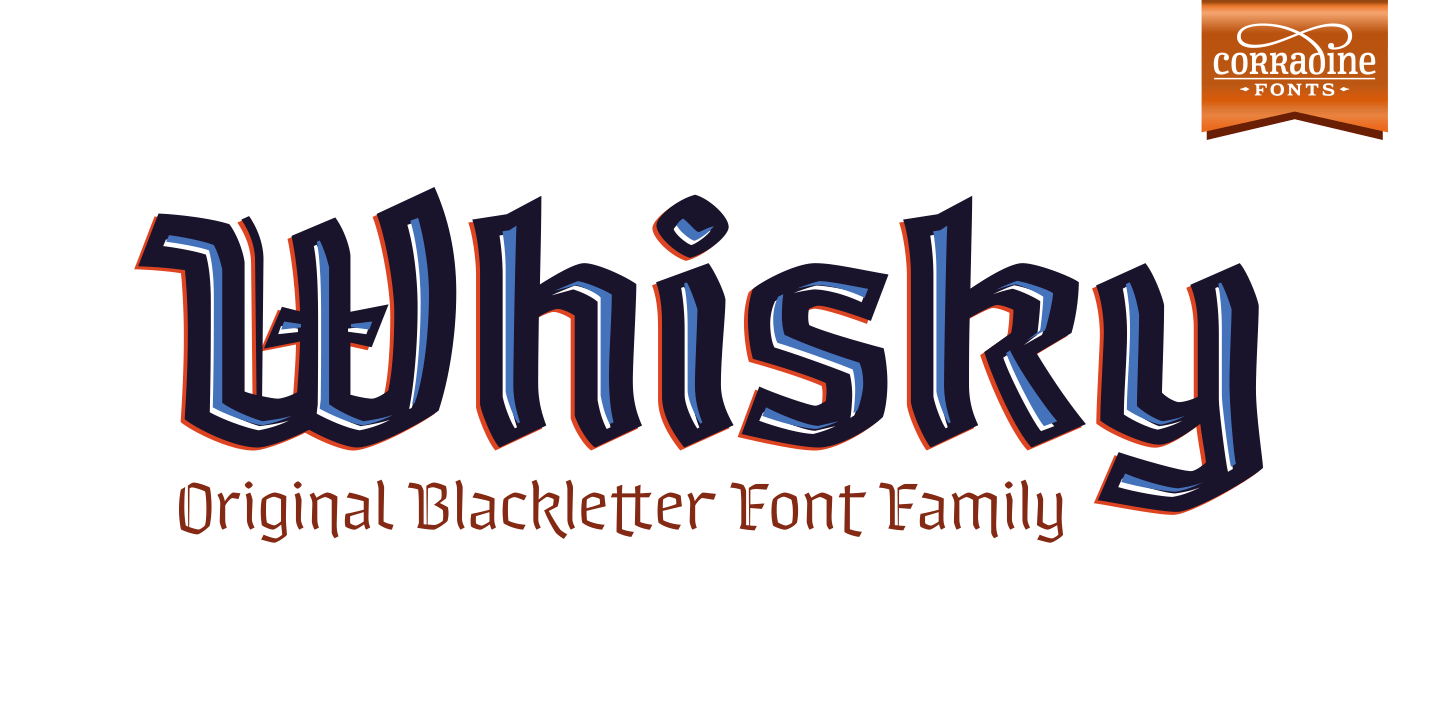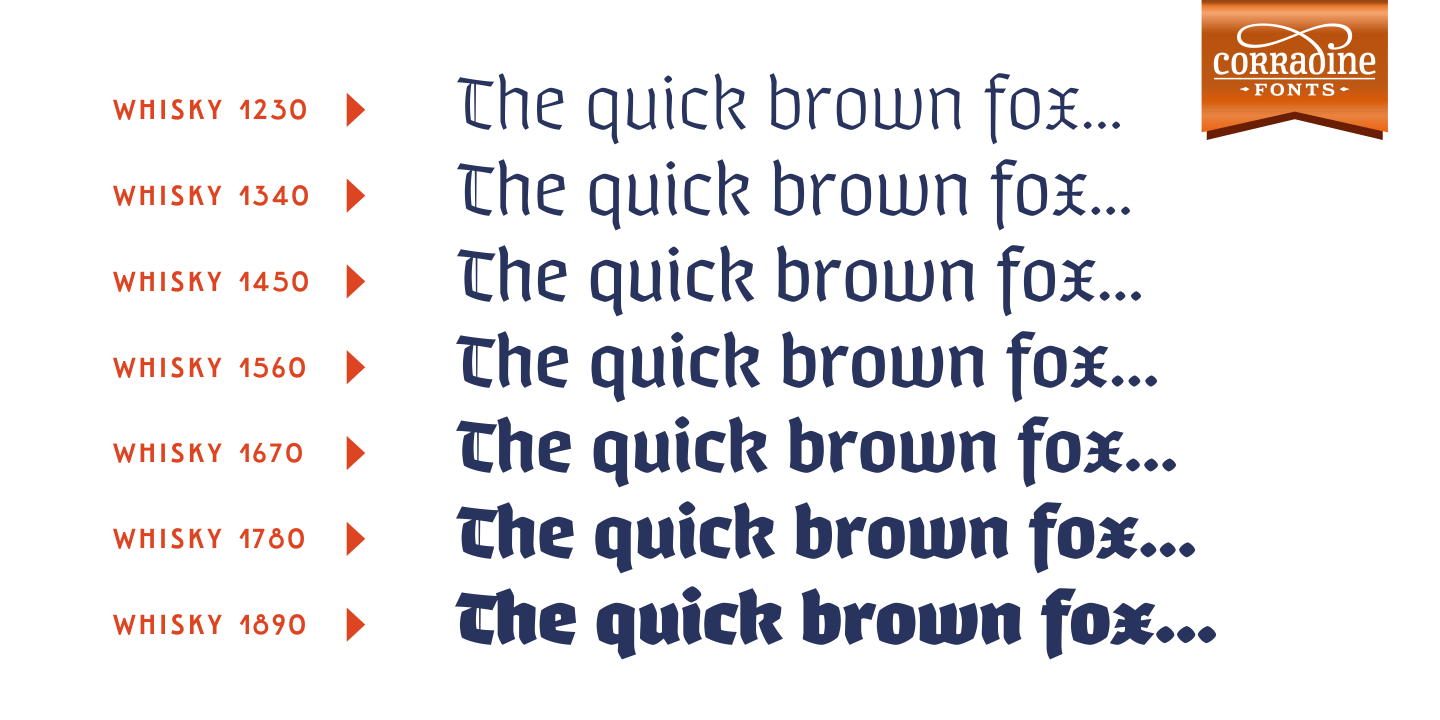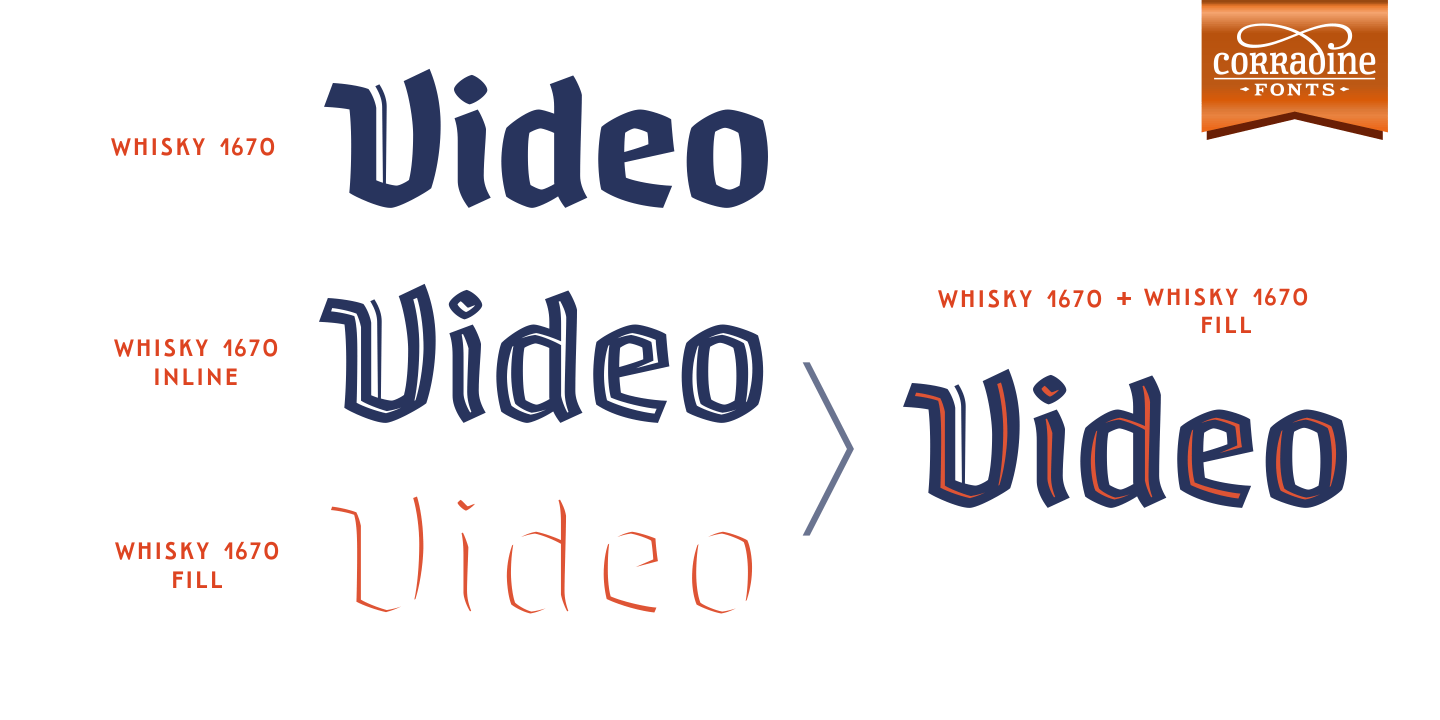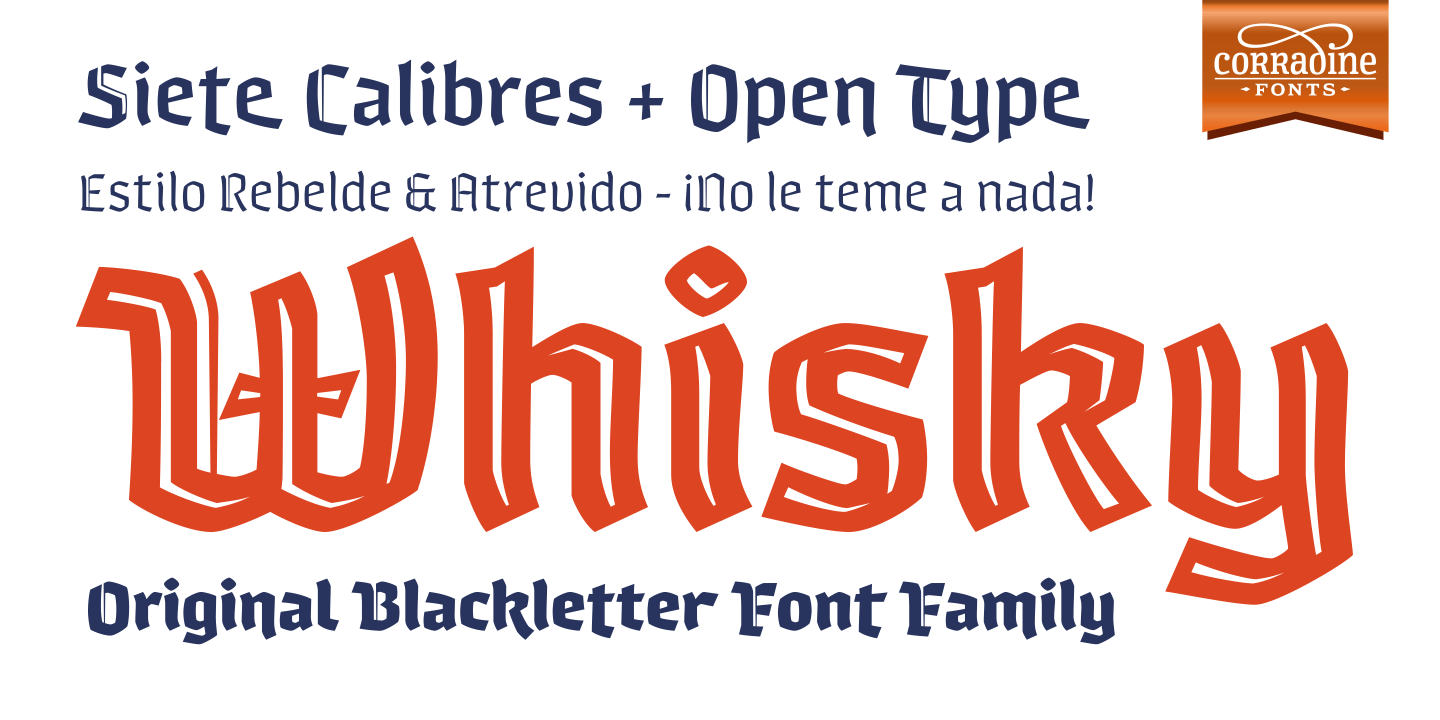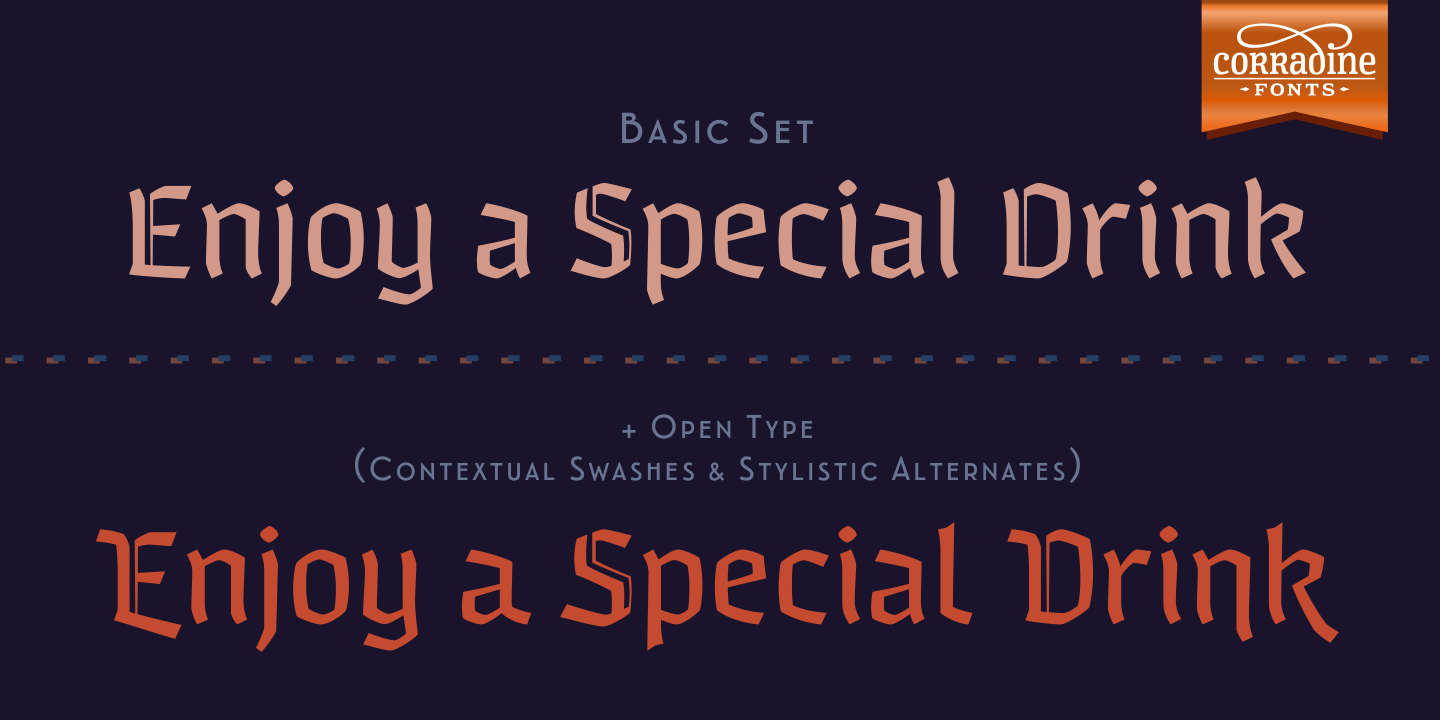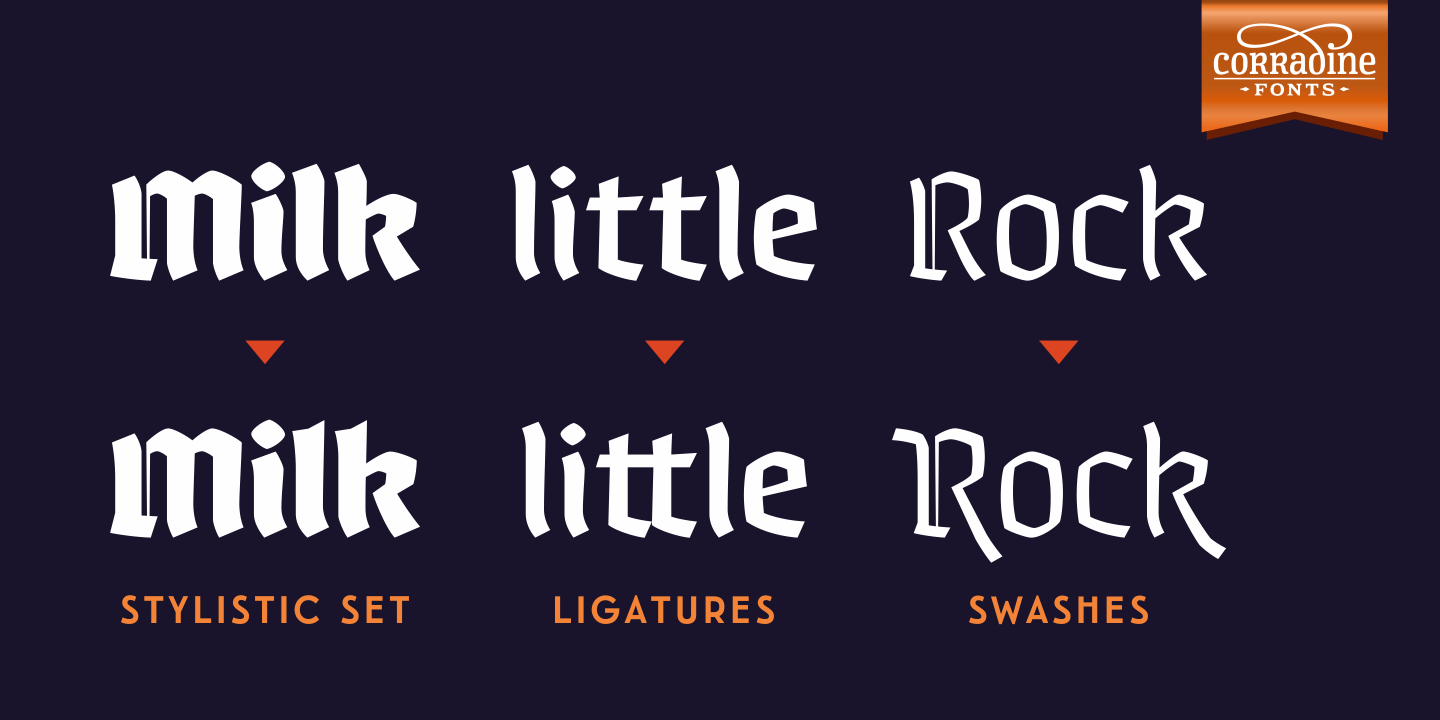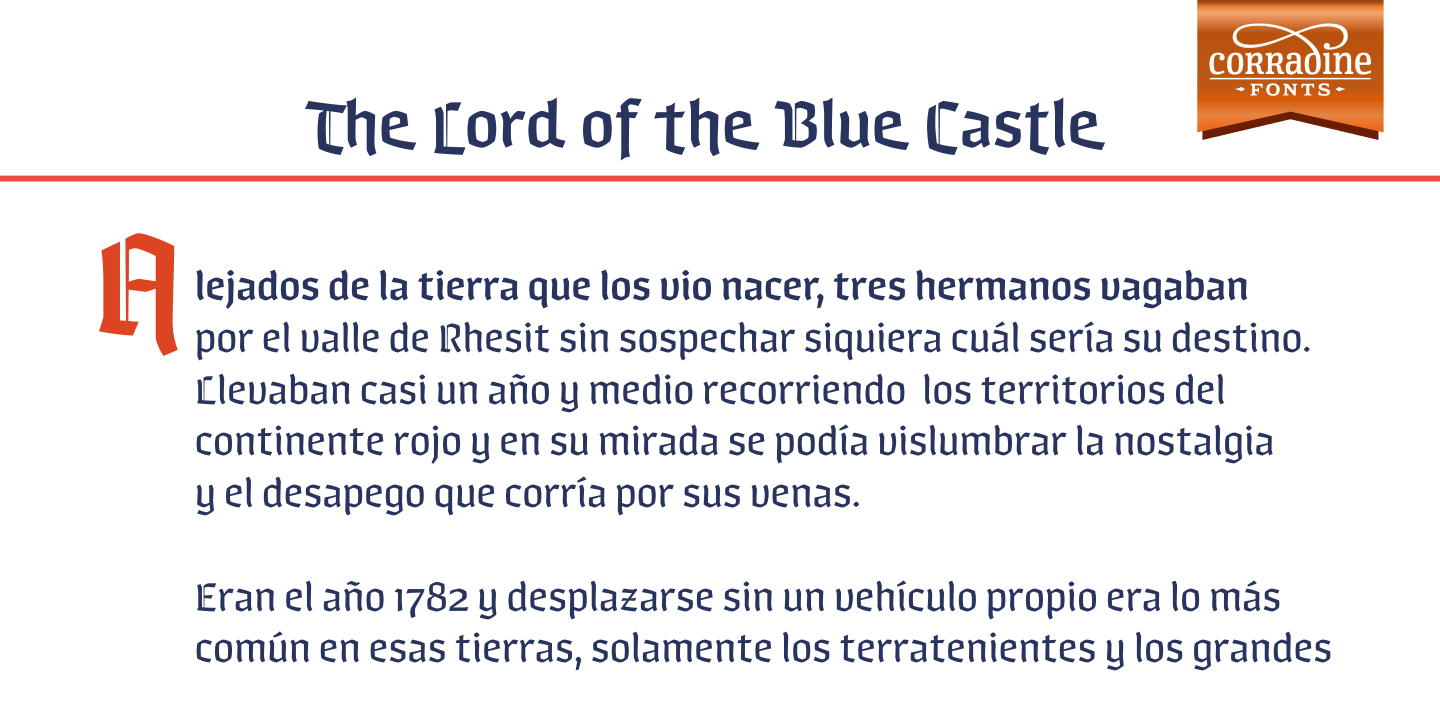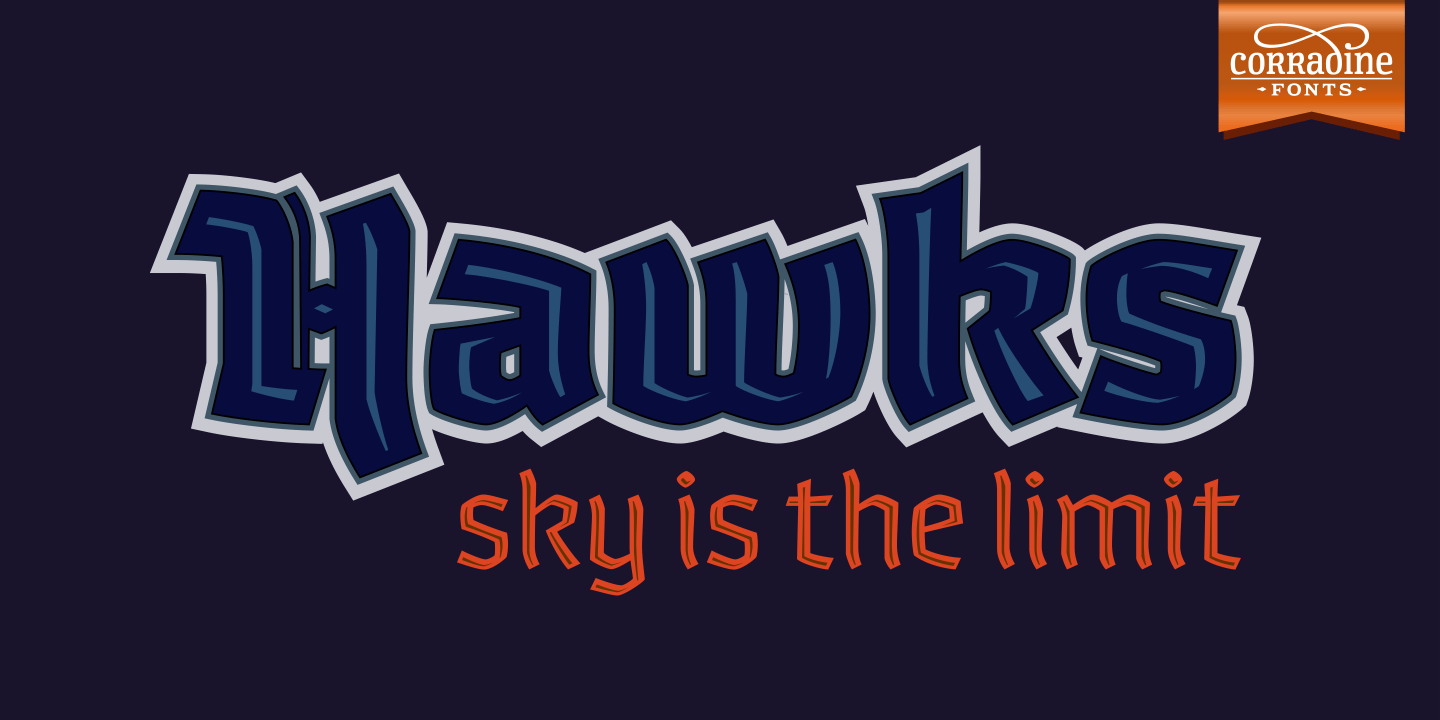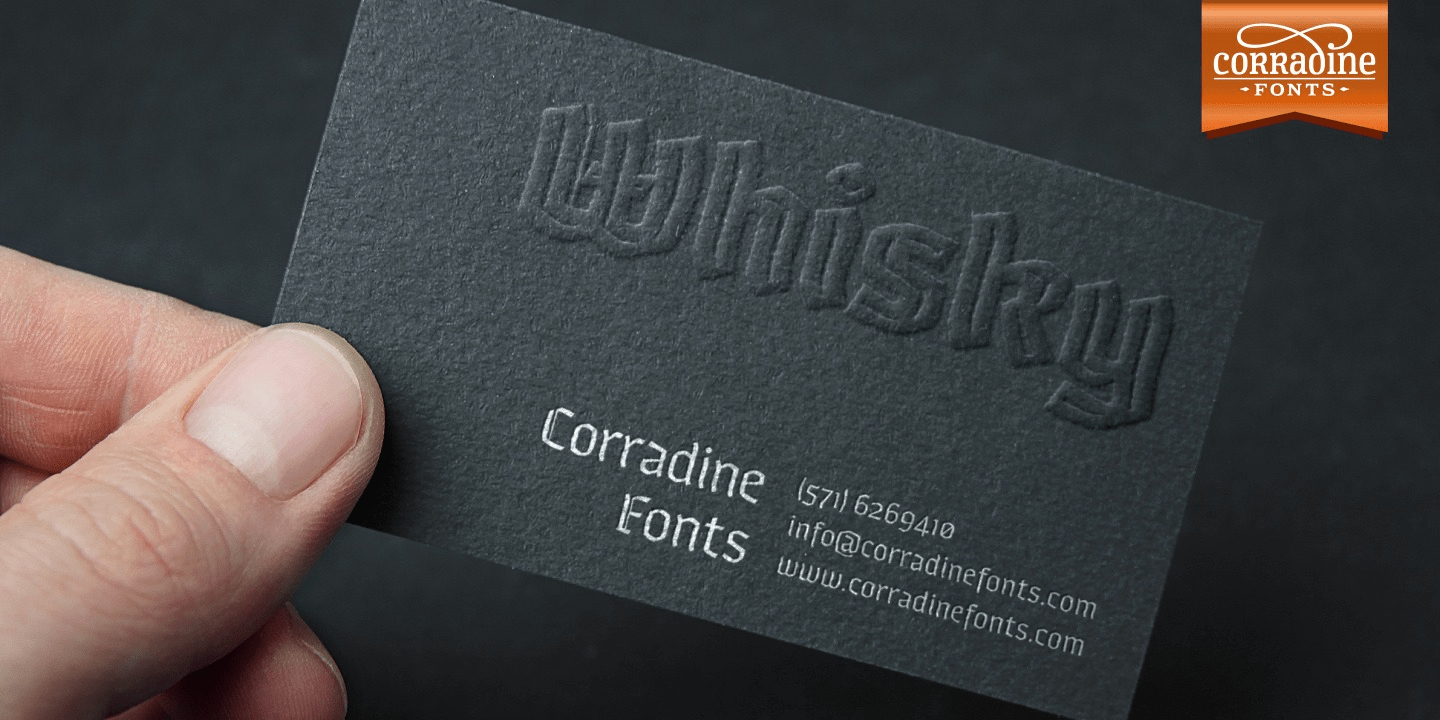
Whisky
Font Family by Corradine Fonts
Whisky is a blackletter font family with a casual touch that makes it look friendly and current. The stroke varies its thickness and angle endings making it form very dynamic bodies of text.
The family includes seven weights, each with a fill and a inline version that allow you to develope more colorful applications overlaping them as layers. Also by using Open Type features you can access to an extended set of characters wich contains swashes and alternative endings to make more playful compositions.